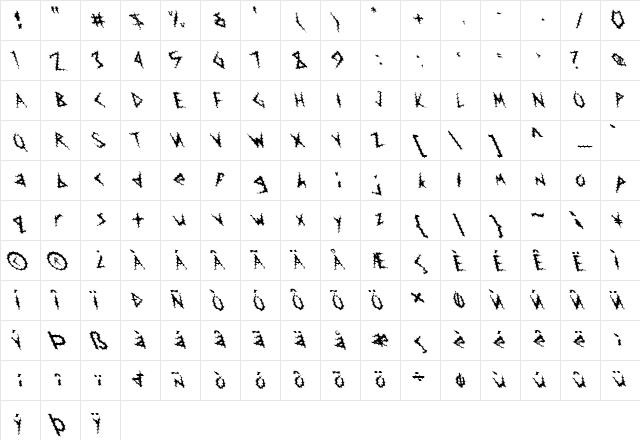
FZ UNIQUE 17 SPIKED LEFTY Normal
FZ UNIQUE 17 SPIKED LEFTY Normal Font Preview
FZ UNIQUE 17 SPIKED LEFTY Normal Preview
FZ UNIQUE 17 SPIKED LEFTY Normal Character Map
Complete FZ UNIQUE 17 SPIKED LEFTY Normal glyph index. Displaying only characters natively supported by FZ UNIQUE 17 SPIKED LEFTY Normal font.
Design Context for FZ UNIQUE 17 SPIKED LEFTY
FZ UNIQUE 17 SPIKED LEFTY is a composed and adaptable typeface that performs quietly and consistently across a wide range of design contexts.